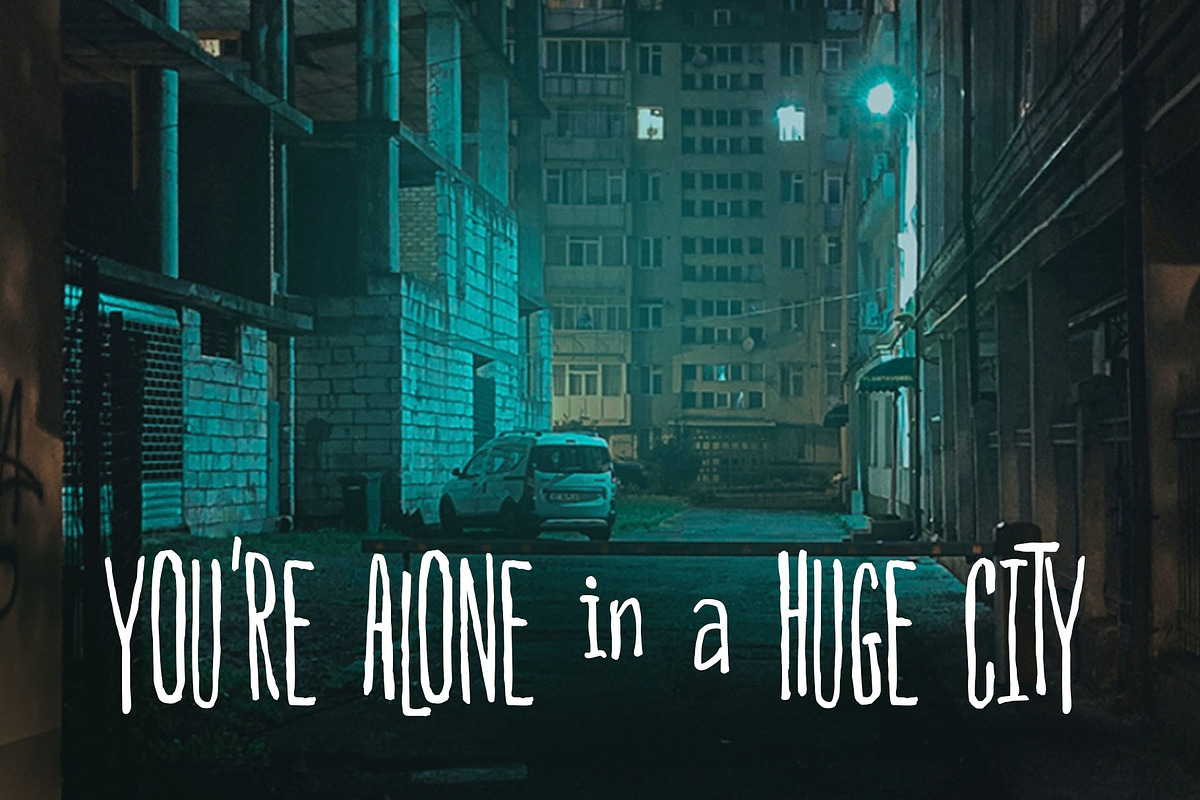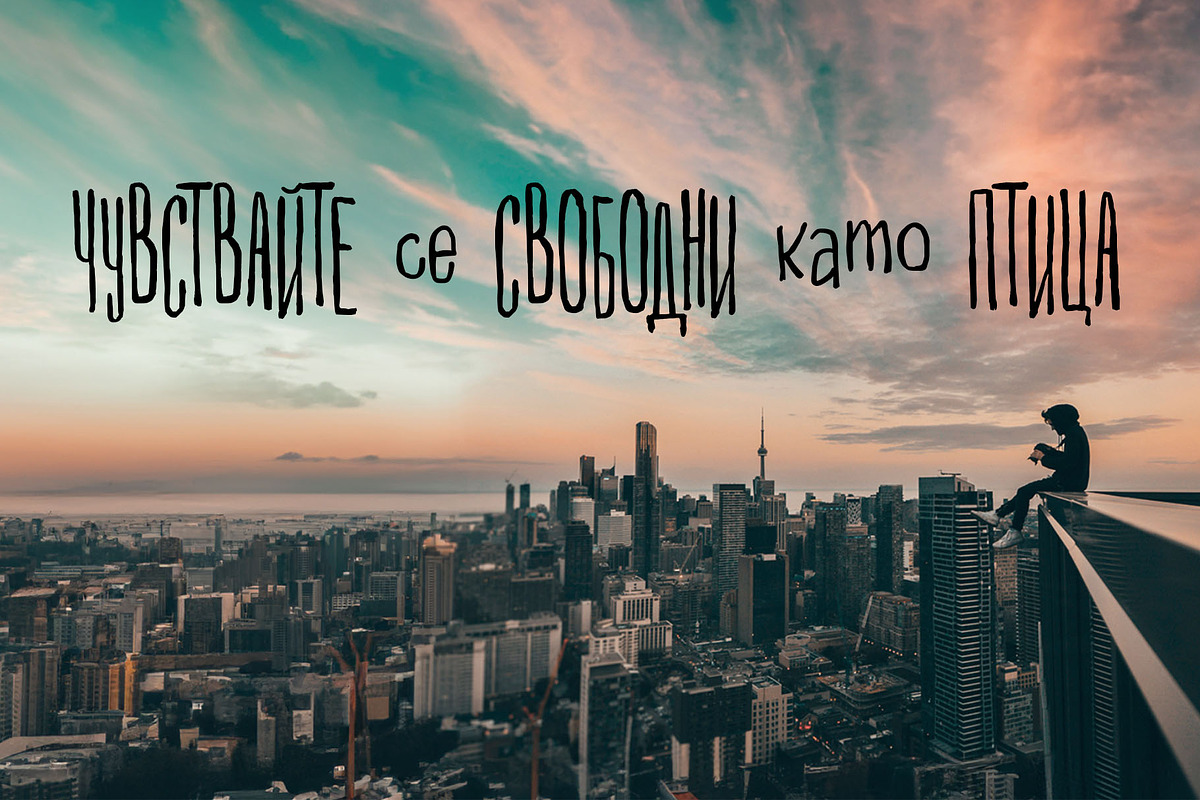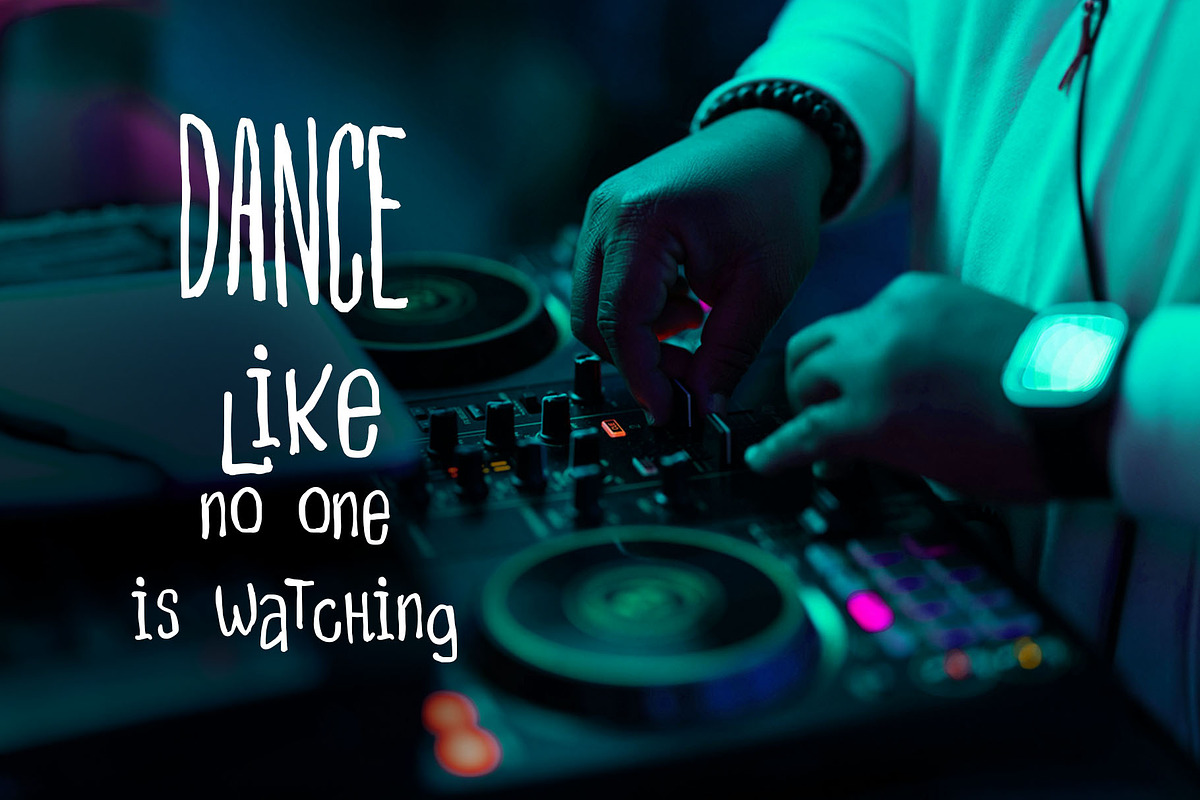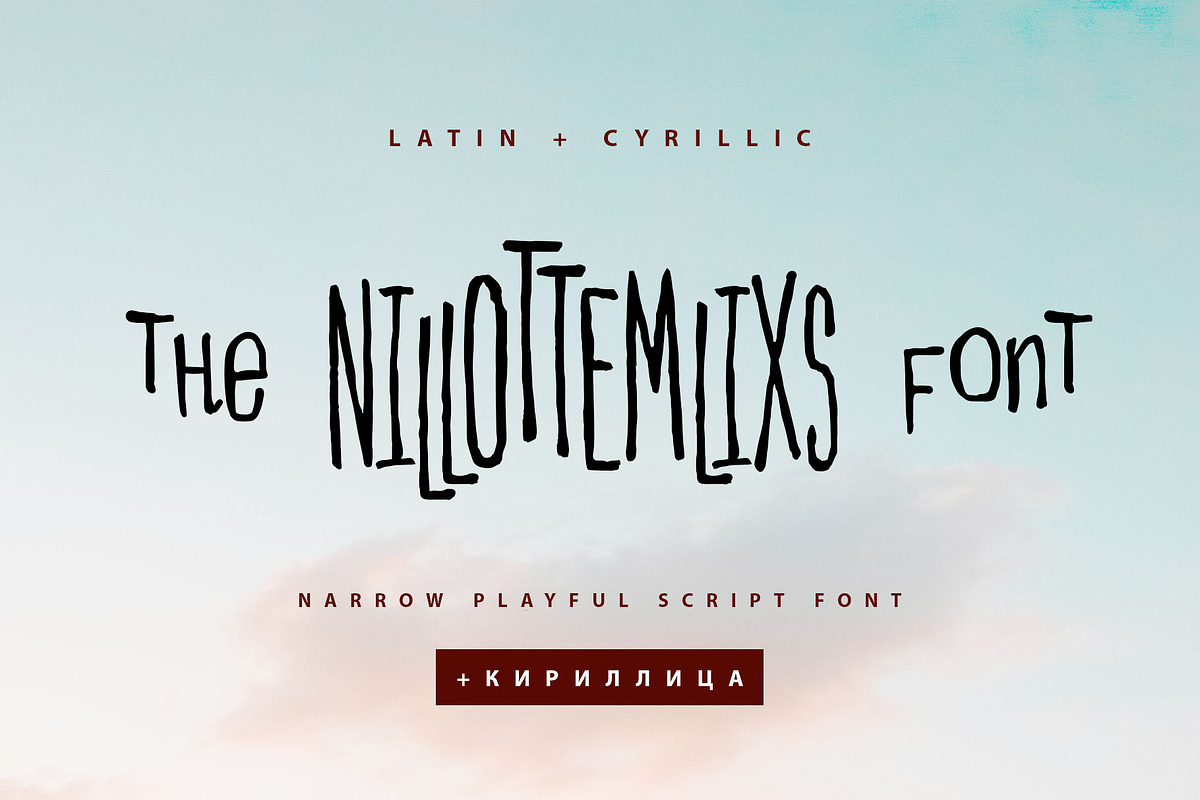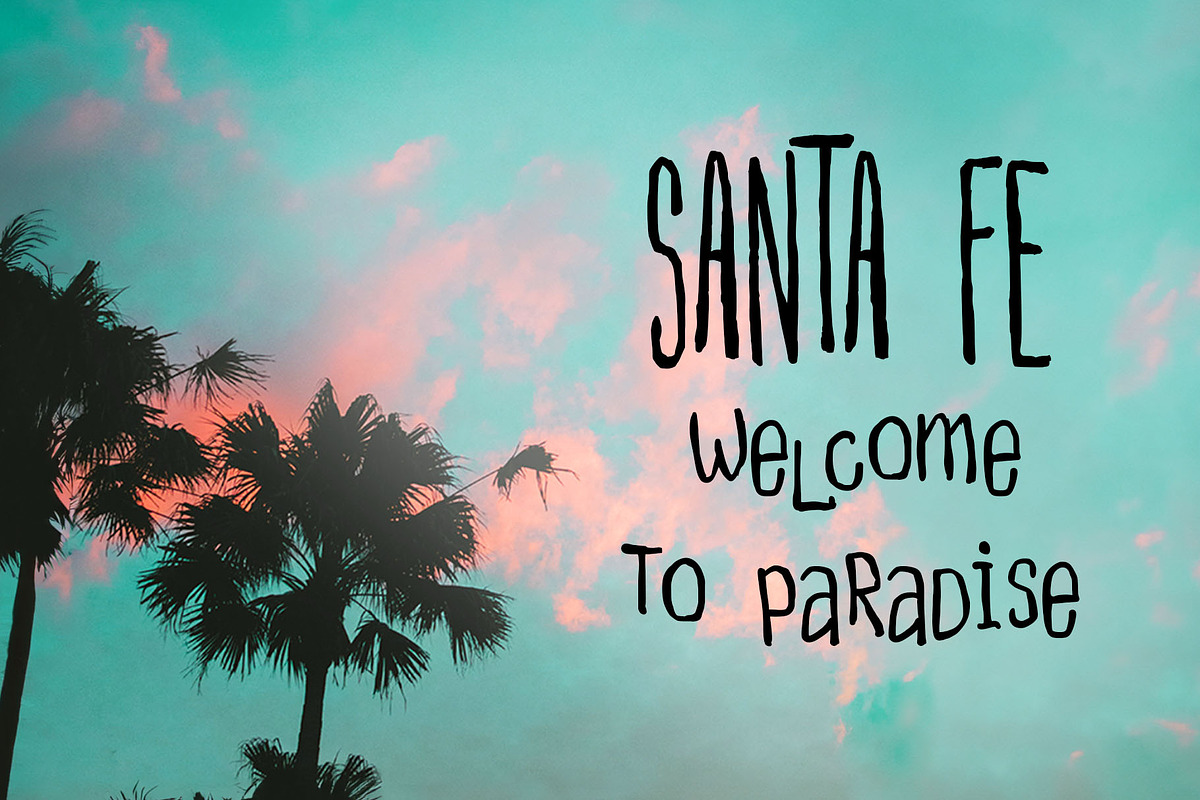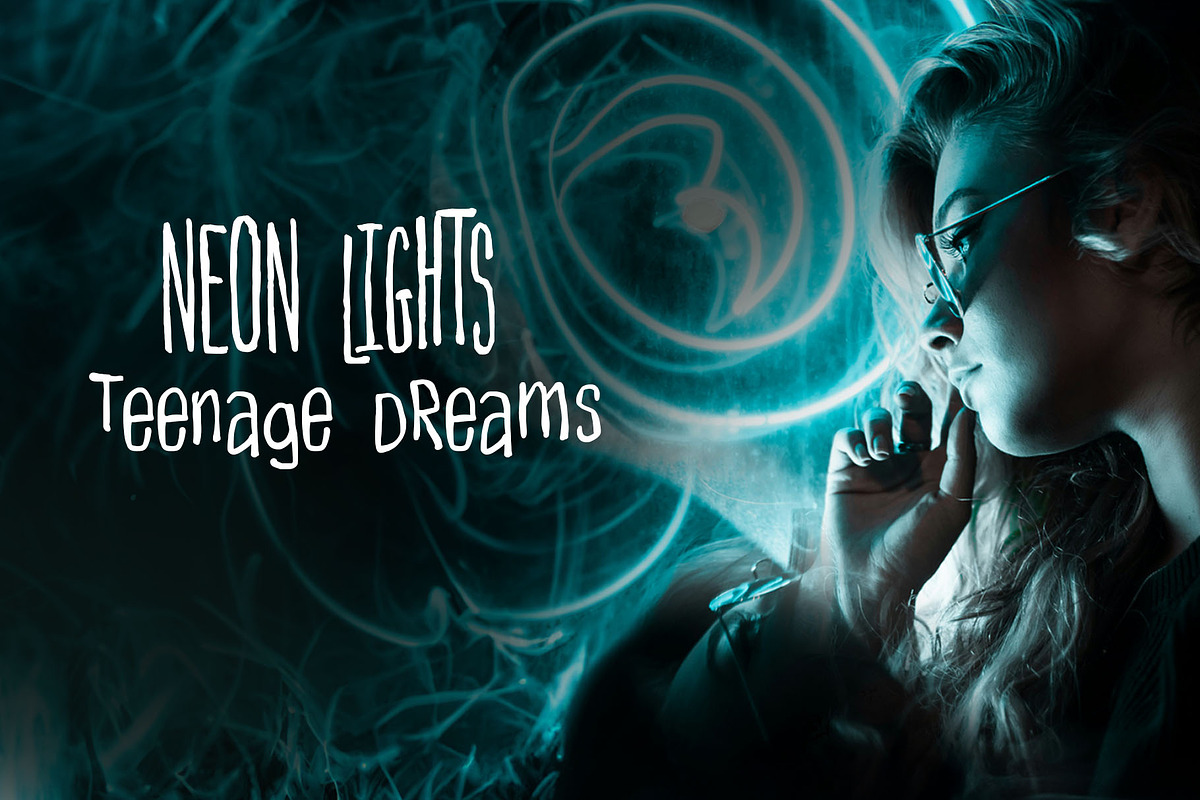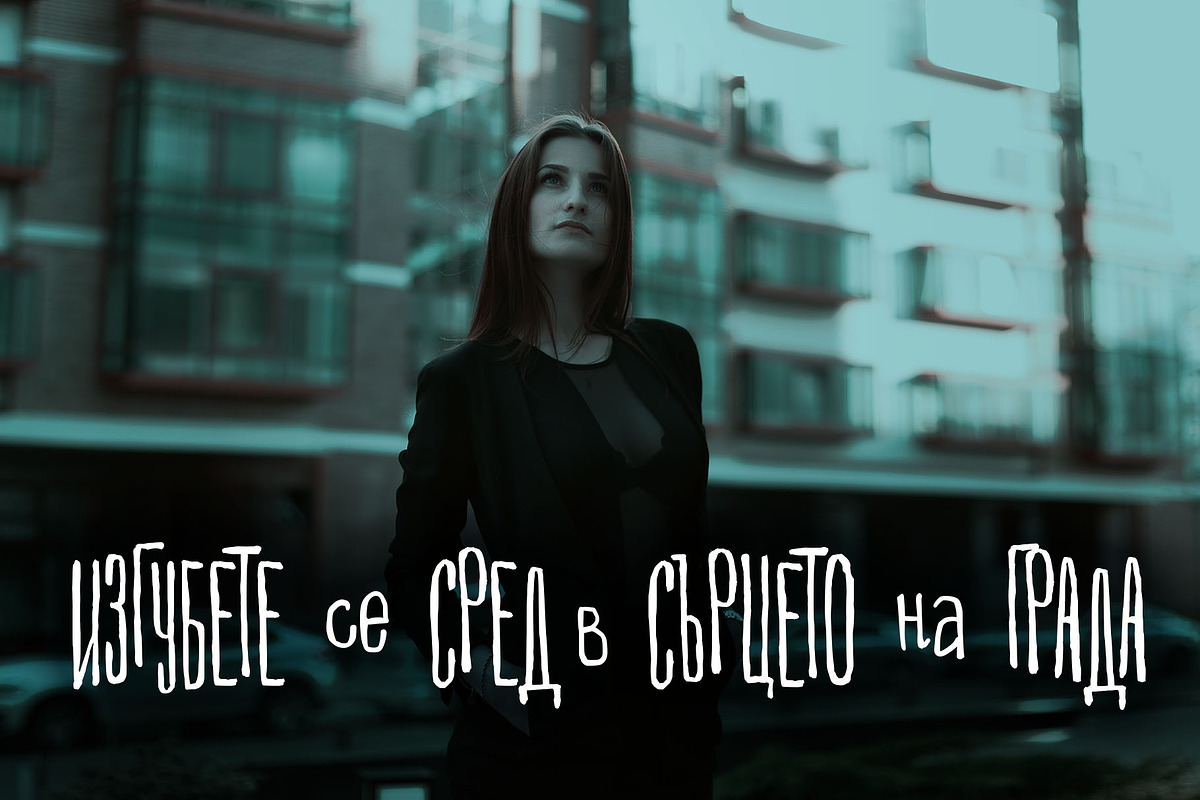
Nillottemlixs Cyrillic playful font
Nillottemlixs Cyrillic is playful script font that will look great on all your designs, branding materials, logos, pretty teenage stickers, business cards, Insta quotes, fashion sketches, and much more.
Multilingual Support for 34 languages: Latin glyphs for Afrikaans, Albanian, Basque, Bosnian, Catalan, Danish, Dutch, English, Estonian, Faroese, Filipino, Finnish, French, Galician, Indonesian, Irish, Italian, Malay, Norwegian Bokmål, Portuguese, Slovenian, Spanish, Swahili, Swedish, Turkish, Welsh, Zulu.
And Cyrillic glyphs support Ukrainian, Belorussian, Bulgarian, Russian Mongolian and Kazakh languages.